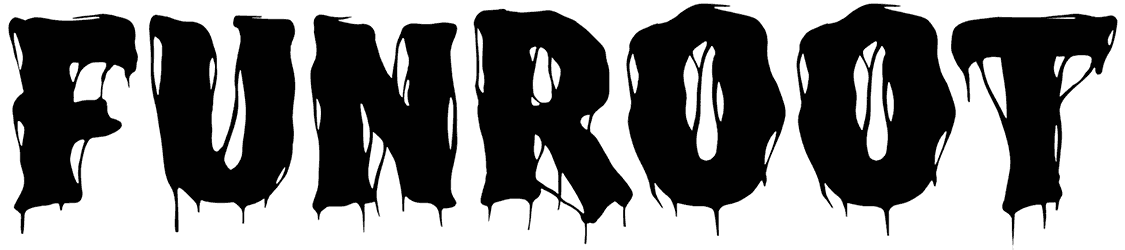
Funroot Font
The strings hanging from each letter in Funroot create an eerie and mysterious mood that can add a new color to your Halloween designs. This holiday font has a rugged look that doubles its scary nature and makes you accept it as a new member of your Halloween font family.
The use of unusual elements to create fear has made this font able to attract everyone’s attention to your posters and advertisements quickly.